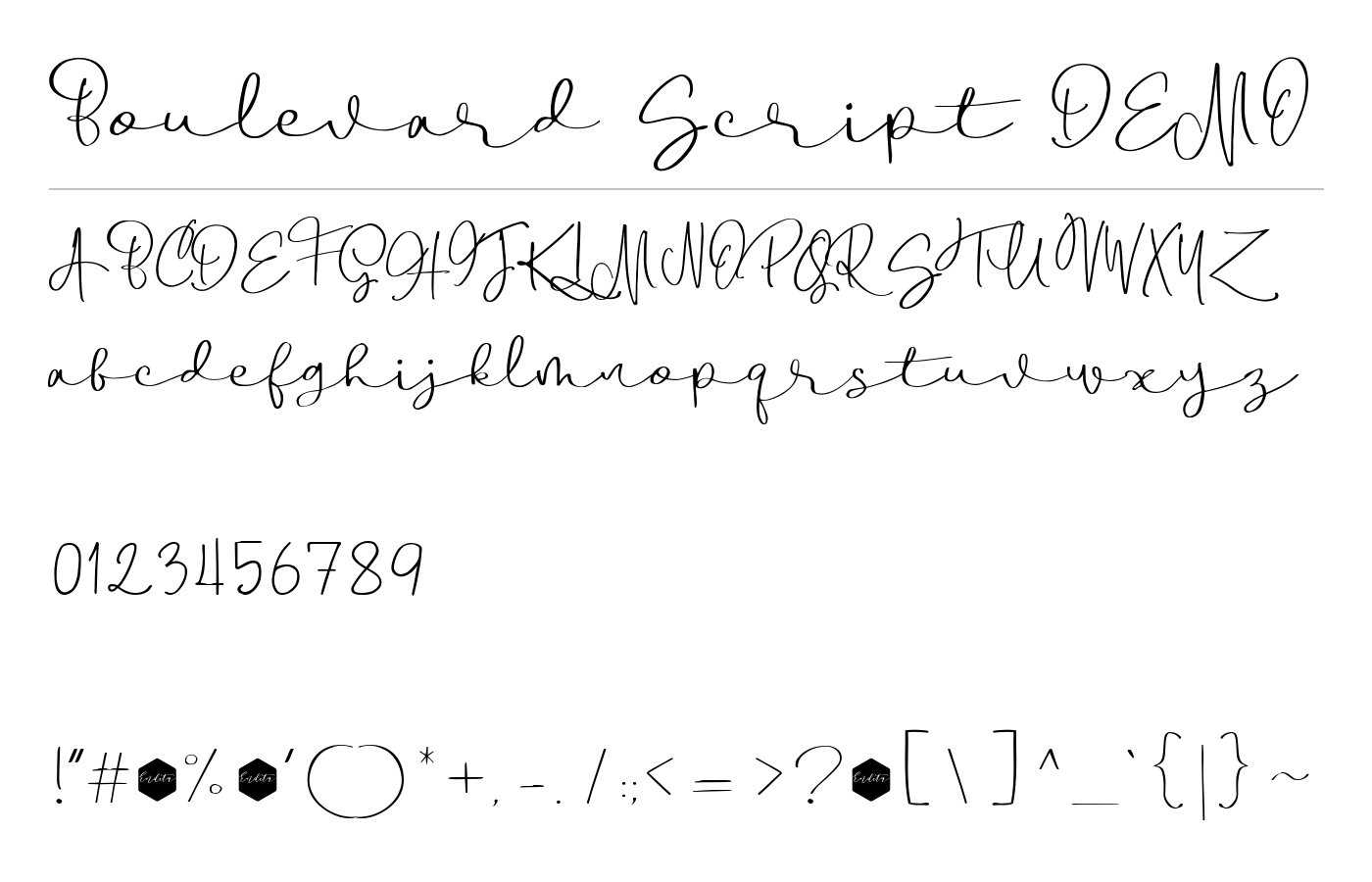
Boulevard Script DEMO is an elegant, delicate script font featuring thin, flowing strokes that mimic natural handwriting with a refined, artistic flair. Its tall, narrow letterforms and whimsical uppercase characters create a graceful and sophisticated feel, making it ideal for invitations, branding, and creative projects that seek a personal and stylish touch. This font shines best in headlines or decorative uses where its unique, airy charm can truly stand out.
Boulevard Script DEMO Font
About Boulevard Script DEMO Font